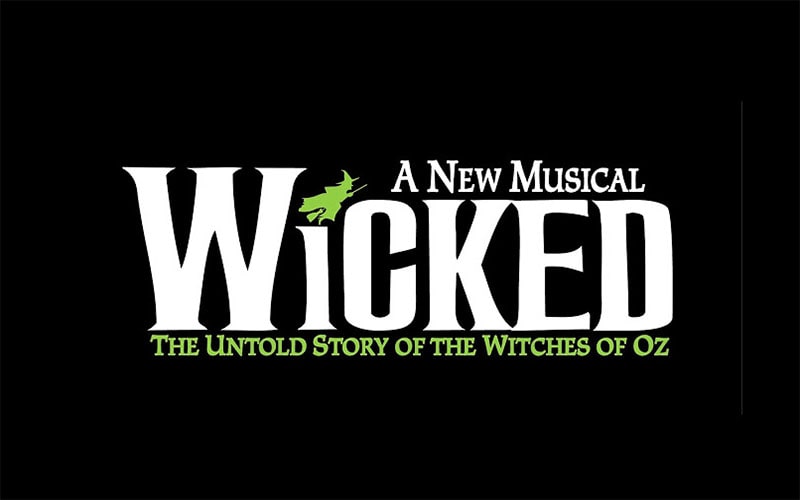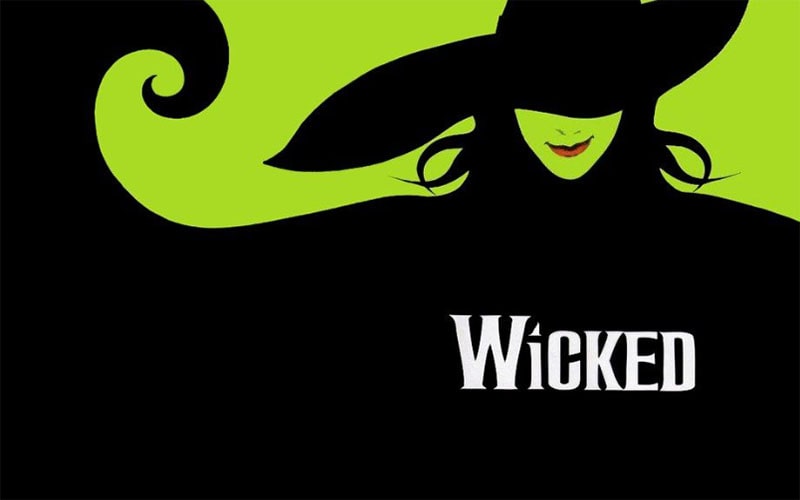
Fancy Logo Typeface
The Wicked Musical Font is inspired by the iconic logo and branding of the popular Broadway musical “Wicked.” This typeface captures the magic, drama, and fantasy of the show.
OPTIFont emerges from collaborative or fan-driven efforts to create this typeface. The font features bold, sweeping lines and delicate curves that reflect the musical’s themes and aesthetic.
The font combines gothic-inspired elements with a touch of whimsy, capturing the dark, magical essence. It typically contains a single font style, characterized by its clean, bold lines and geometric shapes.
Each character is designed with unique flourishes and details that evoke the fantasy and drama of the show’s themes. You can see the texture of this font in the pictures given below.
Wicked (musical) Font
While strongly associated with the musical, the font’s elegant and dramatic styles in TrueType Format make it versatile for various creative projects beyond theater.